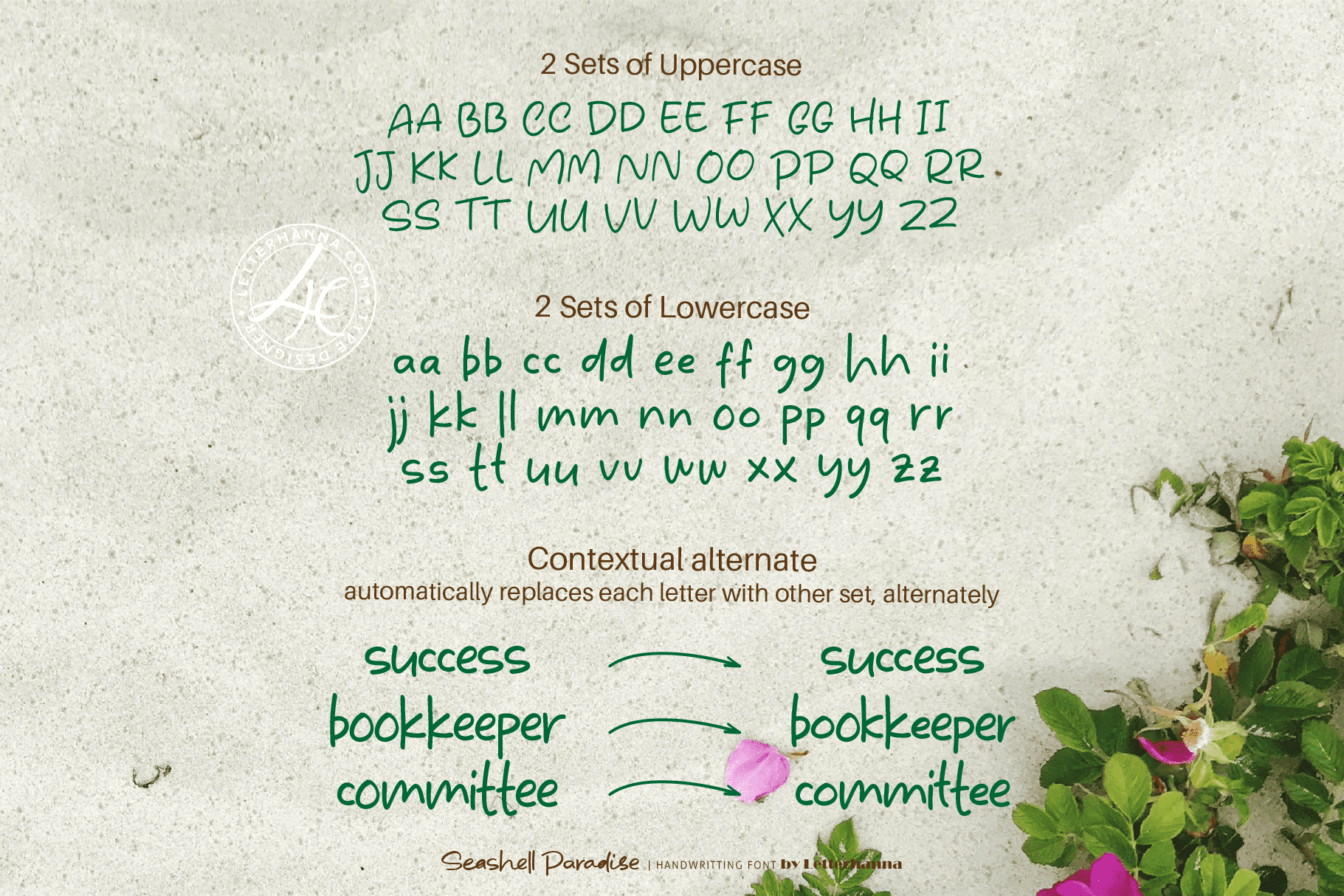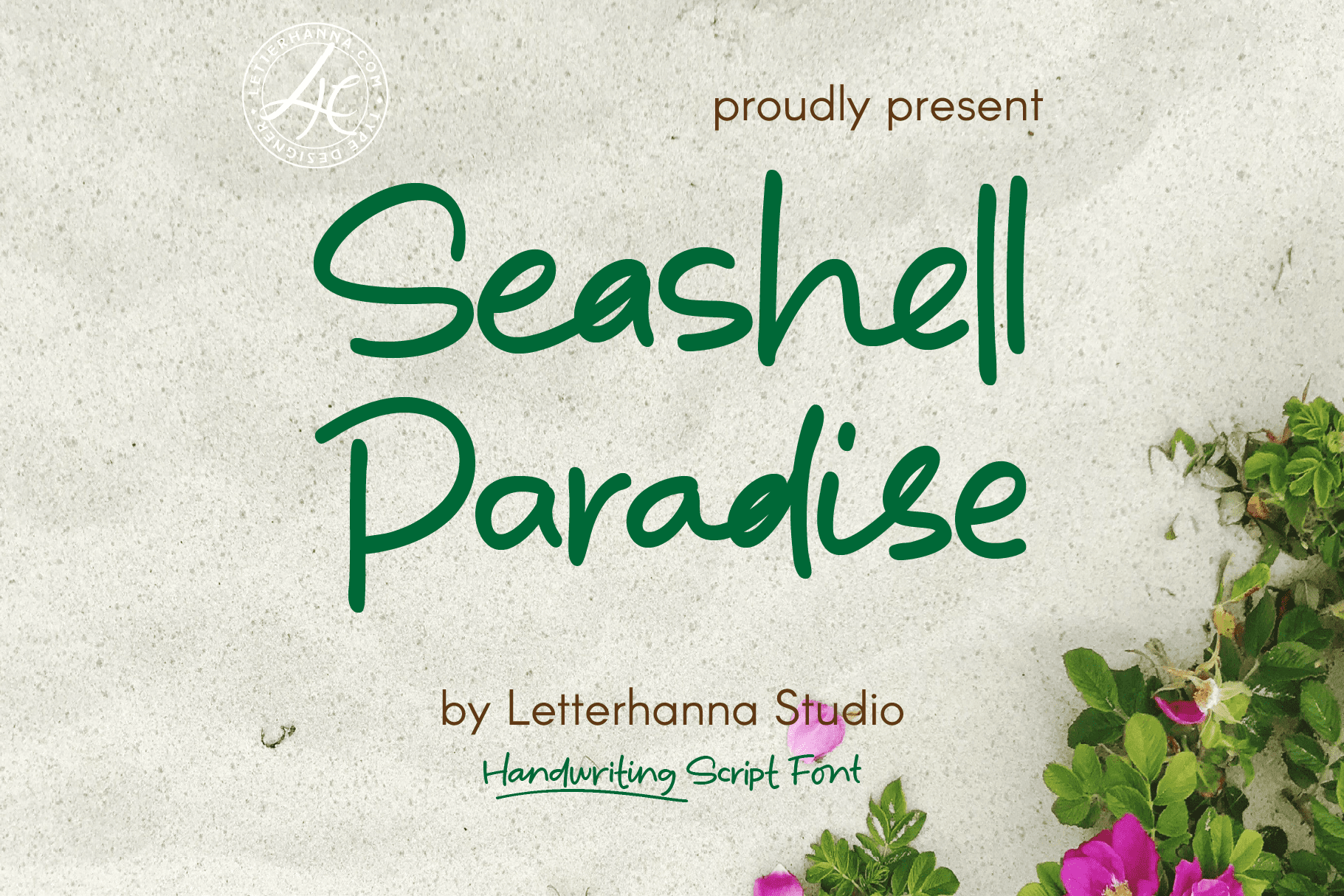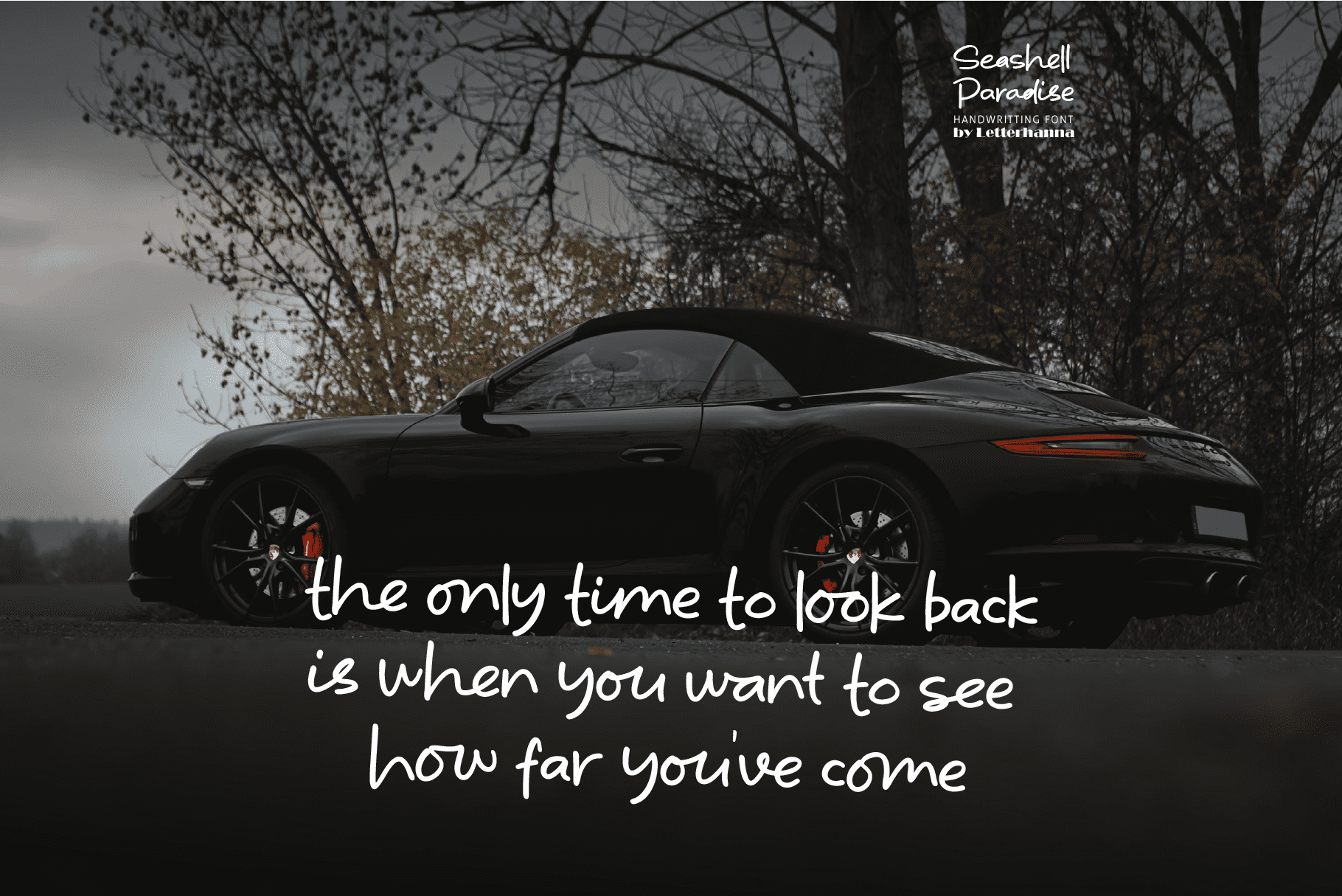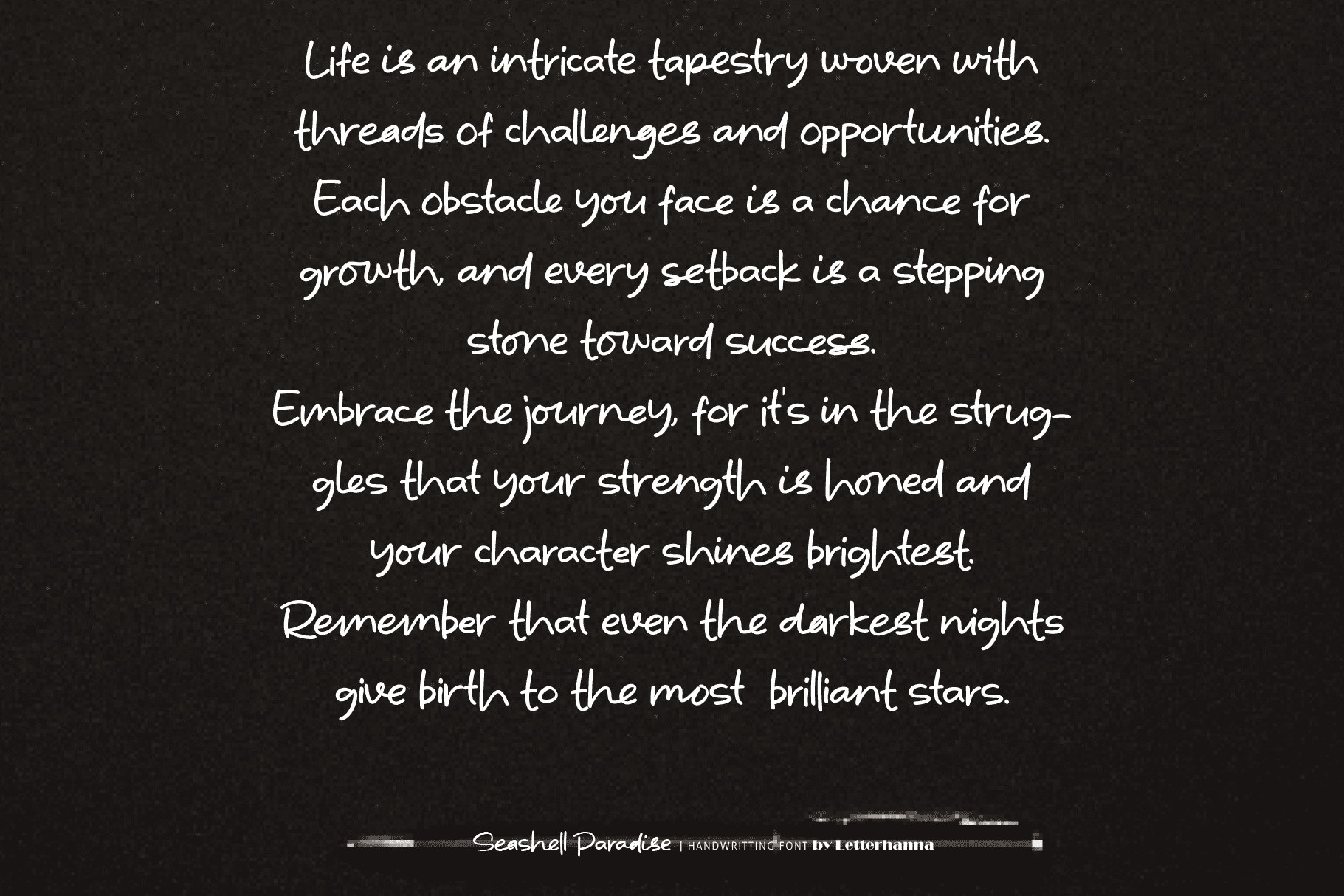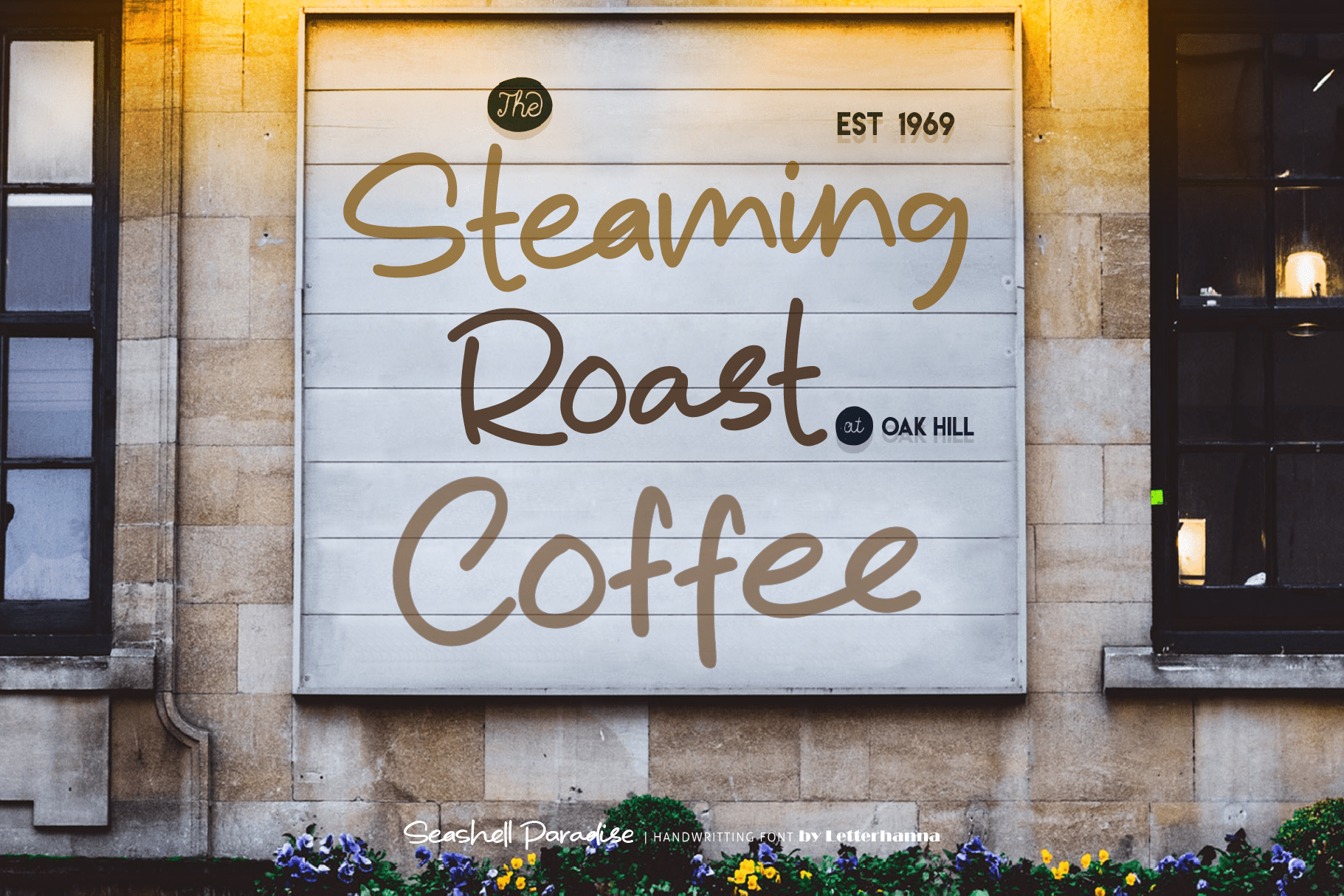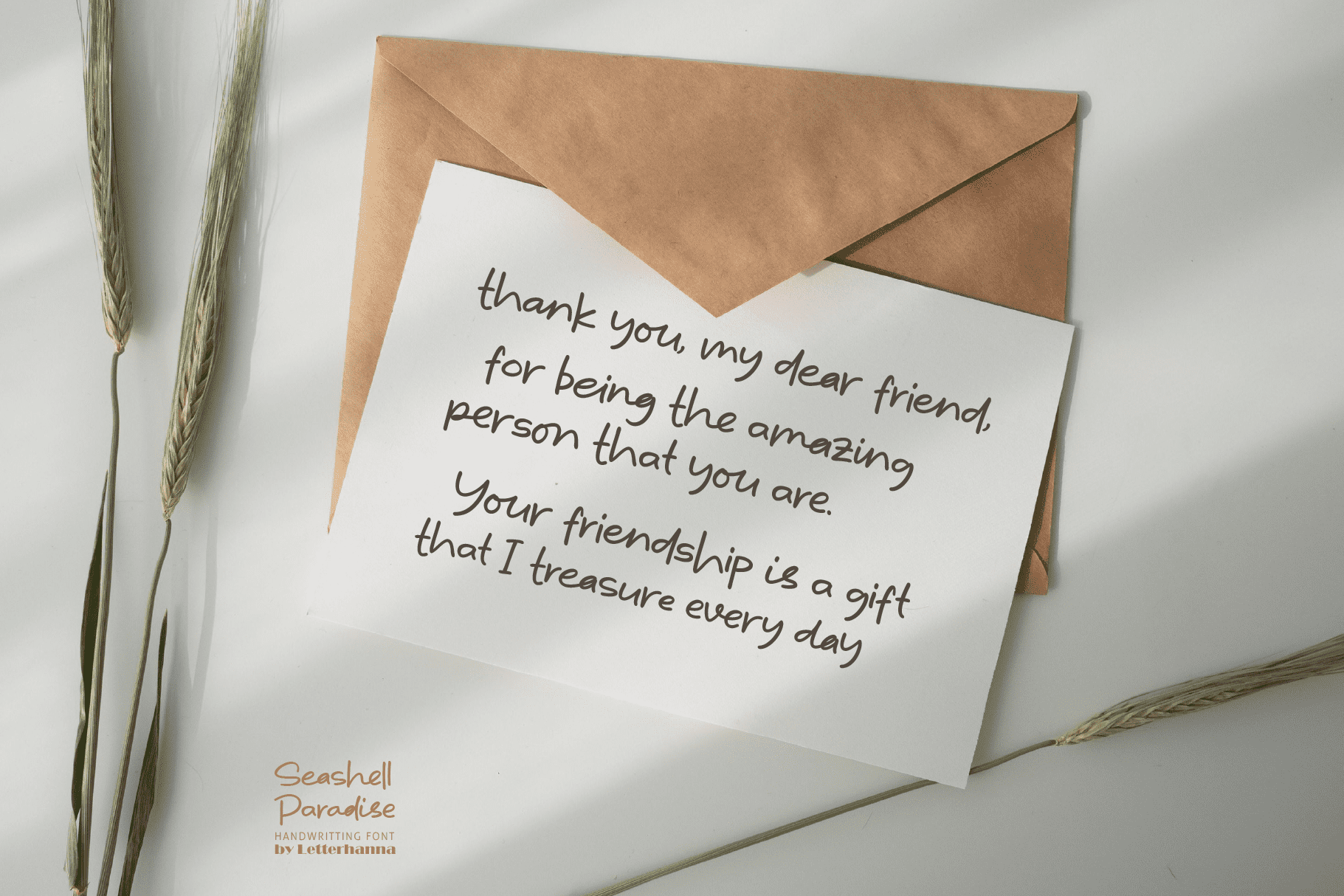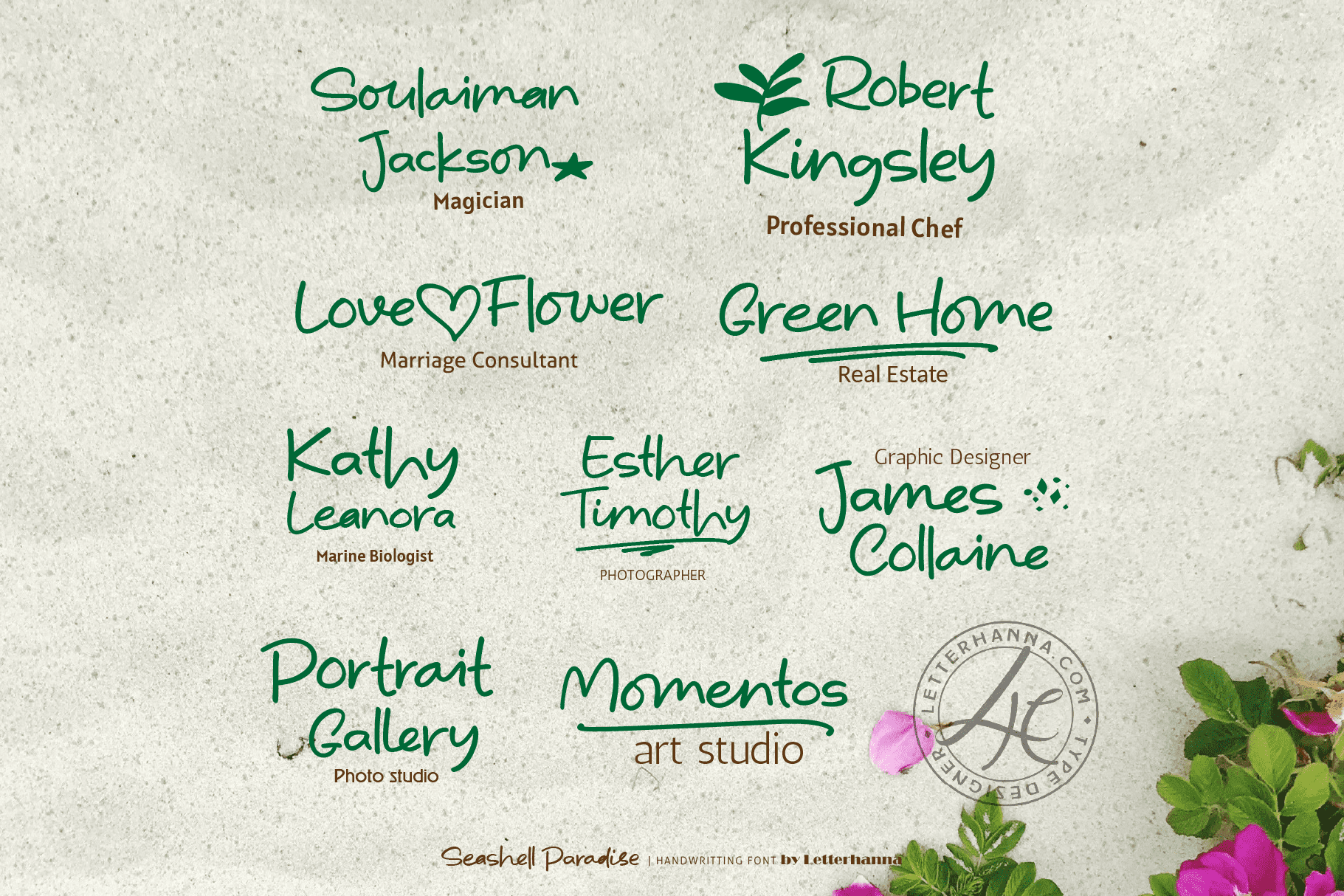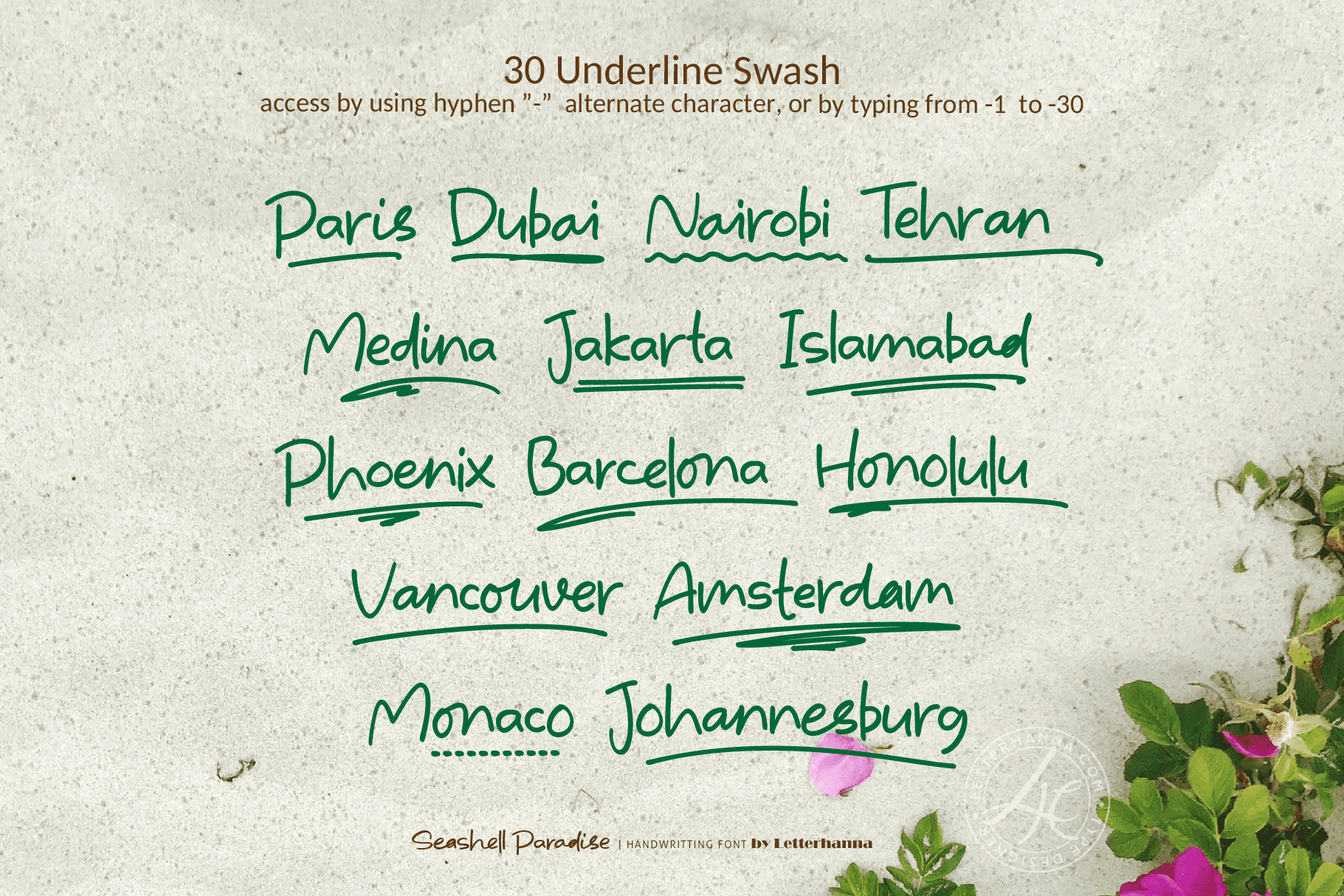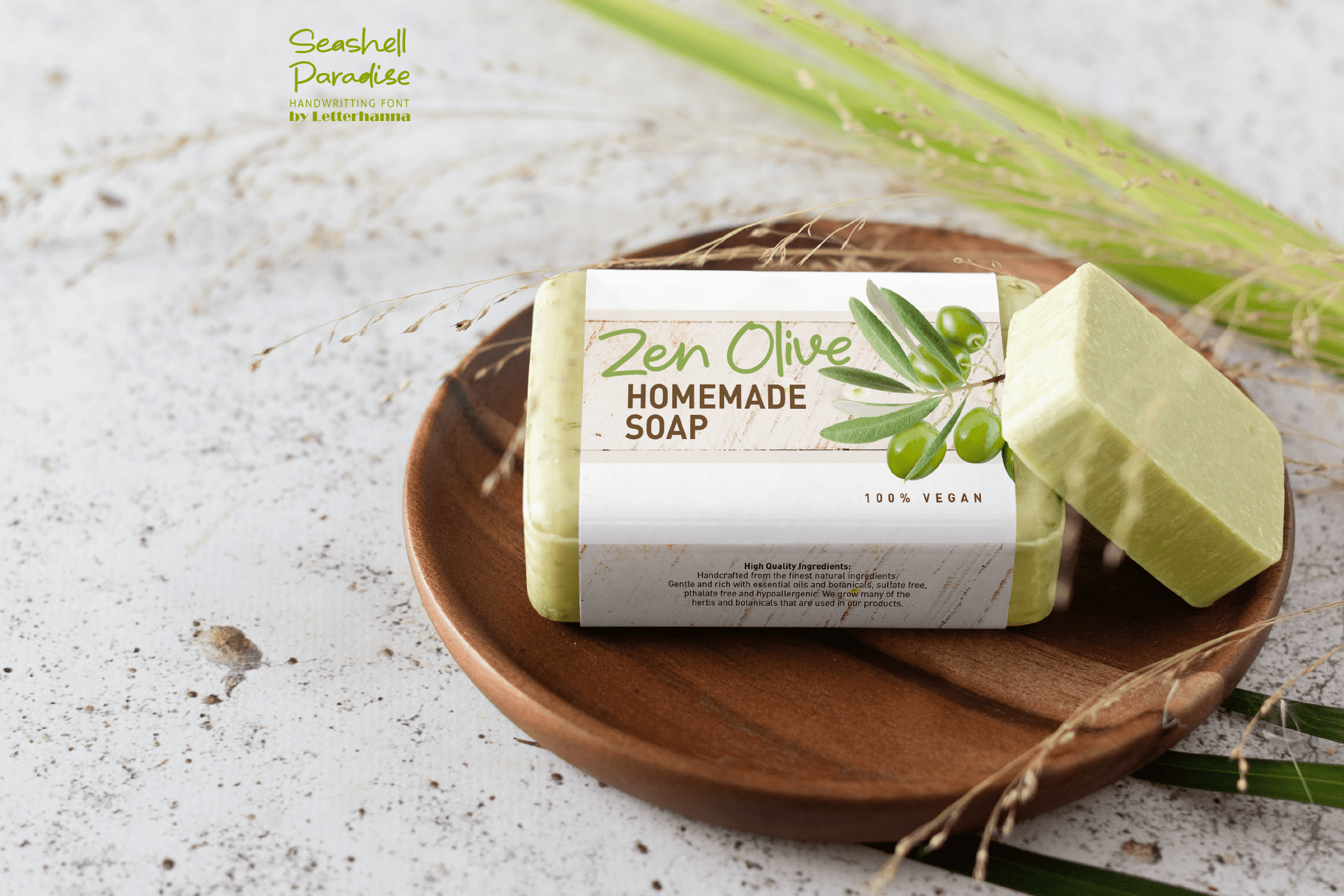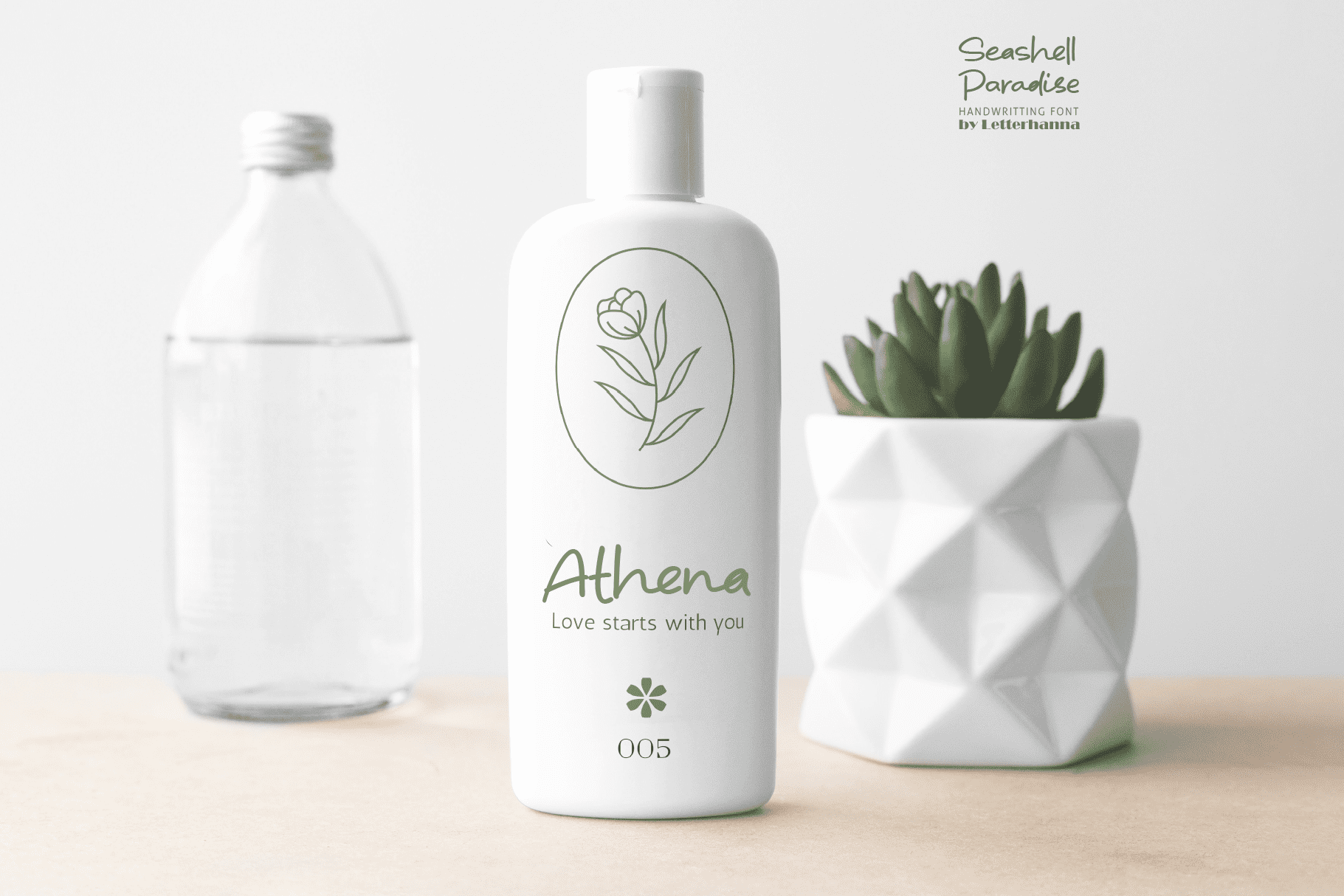
Introducing “Seashell Paradise,” a delightful new handwritten font. This font captures the essence of tranquility and elegance with its flowing lines and graceful curves. “Seashell Paradise” is a versatile typeface that can be used for a wide range of design applications, from invitations and greeting cards to branding and product packaging. Its clean, modern look makes it a perfect choice for projects that require a contemporary and sophisticated feel.
Seashell Paradise has 2 sets of lowercase and 2 sets of uppercase variants to make the font more natural handwritten, each variants will automatically selected base on letter position in words using contextual alternates feature.
Ornaments can be access by type at symbol “at” then followed by number 1 to 26, for example type @4 or @13 etc to get various different ornaments.
Seashell Paradise Font is also PUA encoded which means you can access all of the glyphs and swashes with ease!
FEATURES
– 2 sets of lowercase variants
– 2 sets of uppercase variants
– Contextual alternates
– Uppercase and Lowercase letters
– Numbering and Punctuations
– Multilingual Support
– Ligatures
– Underline swashes
– Ornaments
– Easy access swash and ornaments just by using ligatures